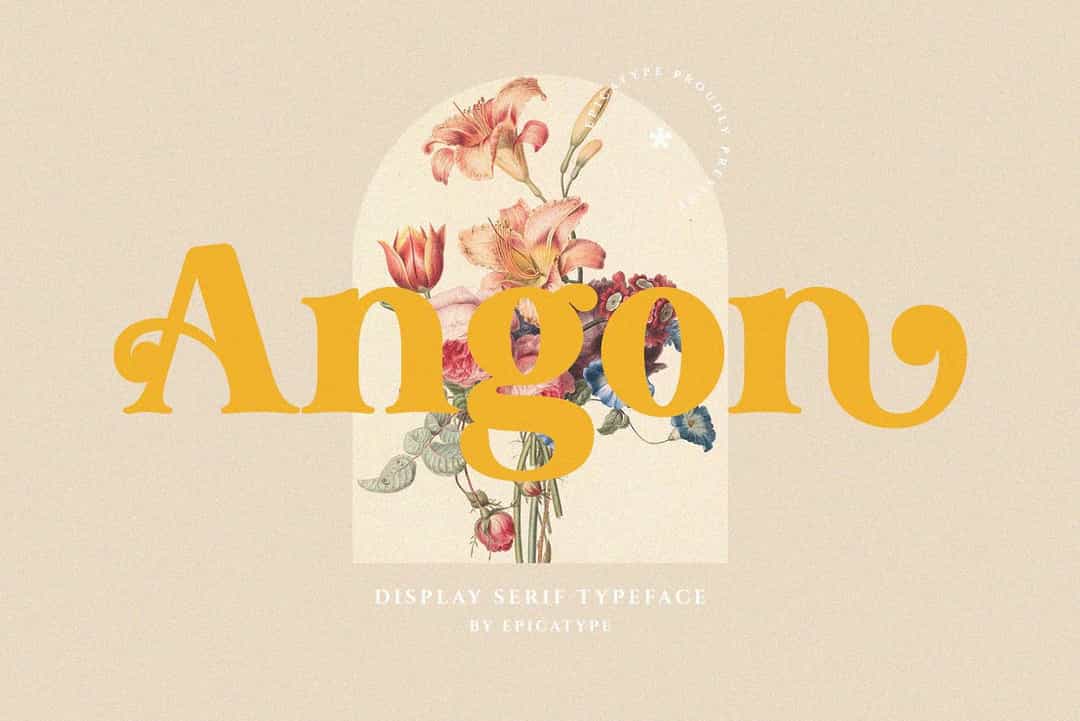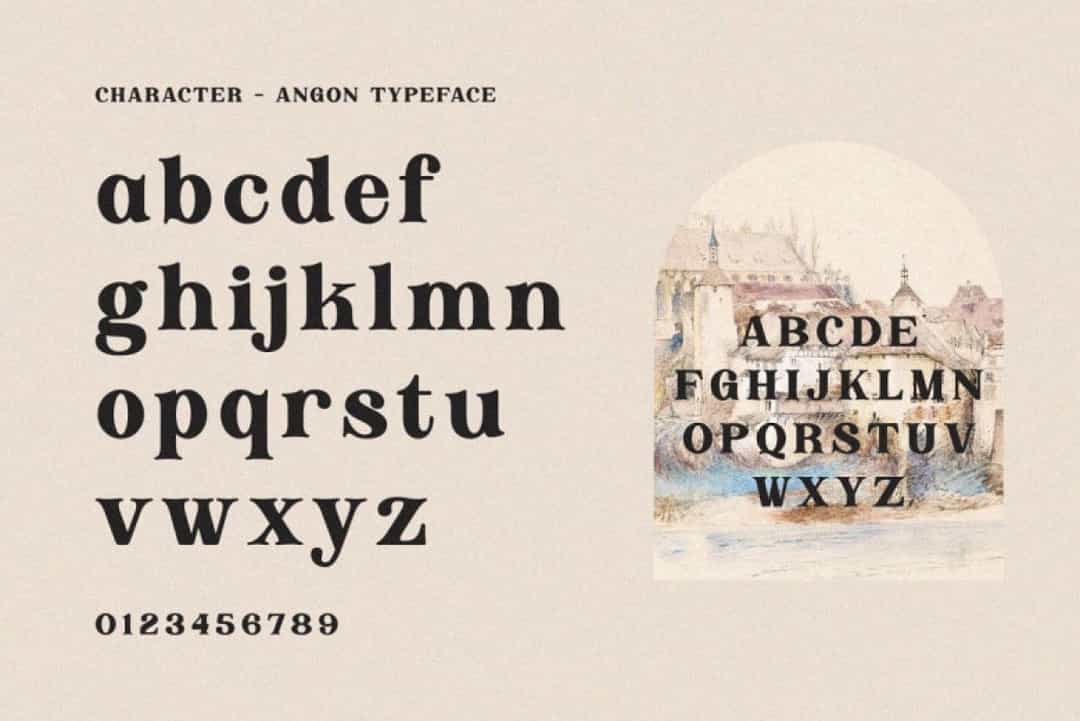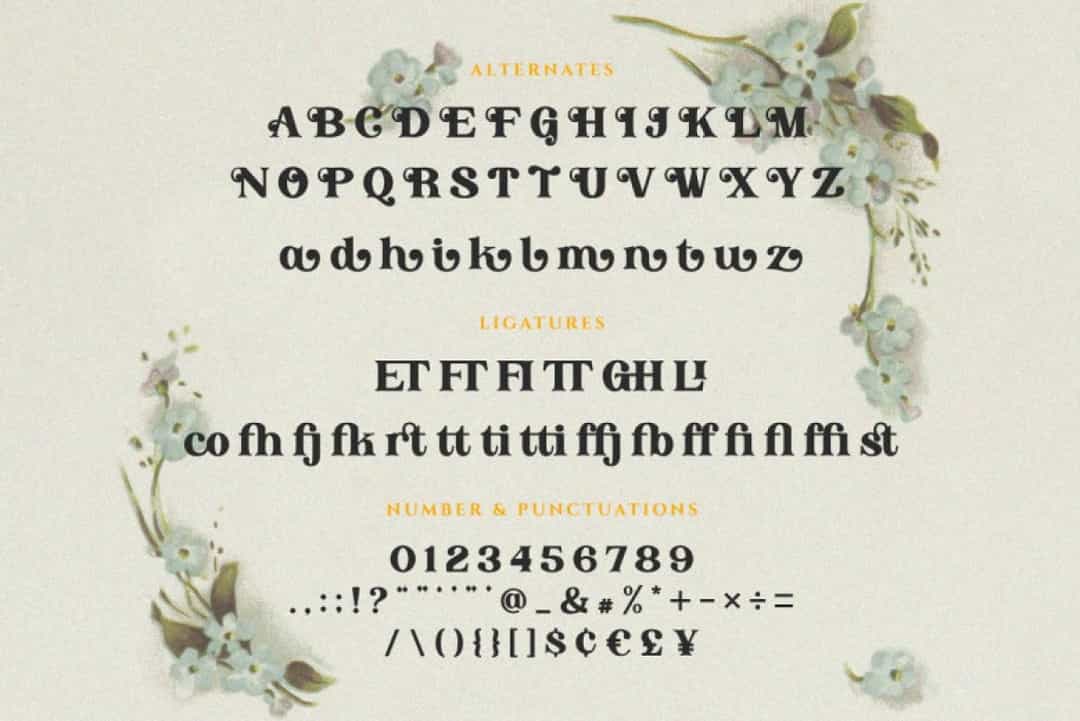
Angon is a stylish serif font with retro charm, ideal for logos social media posts magazines branding banners business cards banners and much more. Additionally, its PUA encoded capabilities give access to all these features with ease!